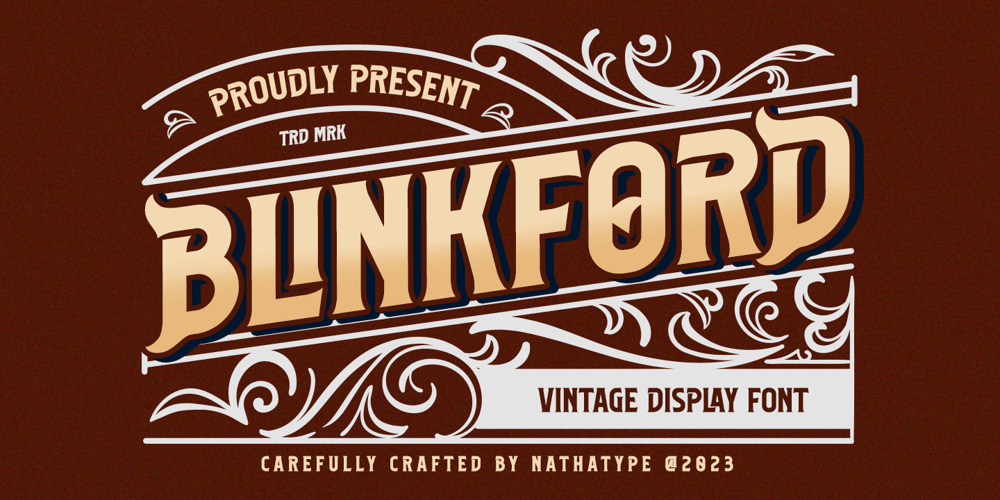
Blinkford Font Family was designed by Donis Miftahudin and published by Nathatype. Blinkford contains 1 styles and family package options. Step back in time and embrace the nostalgic allure of Blinkford, a captivating uppercase display font that transports you to a vintage charm. The characters are bold and robust, evoking a sense of grandeur and prominence that harks back to a bygone era. The open layout enhances legibility and imparts a sense of spaciousness that is characteristic of vintage typography. As a special bonus, this font includes ornaments. Blinkford fits in headlines, logos, branding materials, and many more.